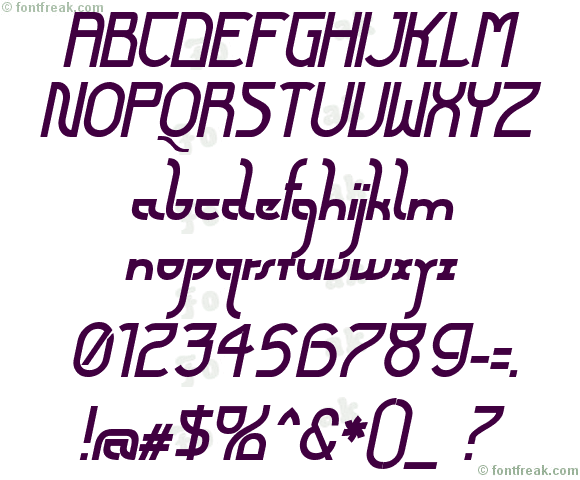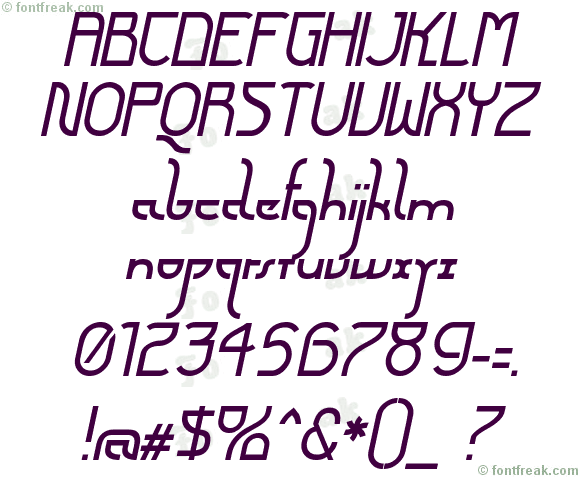
Futurex Arthur Italic
About Futurex Arthur Italic
Futurex Arthur Italic is a striking display font designed by Steve Deffeyes, encapsulating a unique blend of modern aesthetics and classic flair. As a freeware typeface, it is accessible for various creative projects, making it a valuable asset for graphic designers and content creators alike. This font belongs to the display category, characterized by its bold and italicized style that commands attention.
Visually, Futurex Arthur Italic features a distinctive stroke weight that balances between thick and thin lines, providing an appealing contrast that enhances readability while maintaining a stylish appearance. The elegant slant of the letters adds a dynamic touch, and the carefully spaced characters contribute to a harmonious flow, making it suitable for both headlines and focal text. The font's decorative elements, such as the unique flourishes on certain letters, lend it an artistic quality that sets it apart from more conventional typefaces.
This font excels in several specific use cases. It is perfect for movie posters, where its bold presence can draw in viewers. Additionally, it can elevate wedding invitations with its romantic and sophisticated flair. Restaurant menus can benefit from its eye-catching style, making dishes stand out. Branding materials for creative businesses will also find this font advantageous, as it embodies a modern yet timeless aesthetic.
The target audience for Futurex Arthur Italic encompasses graphic designers seeking to enhance their projects, small business owners aiming for a distinctive brand identity, and content creators looking for an eye-catching typeface.
In conclusion, Futurex Arthur Italic font free download is a remarkable choice for anyone looking to make a statement. Its unique visual qualities and versatility ensure it remains a standout option for a variety of creative applications.